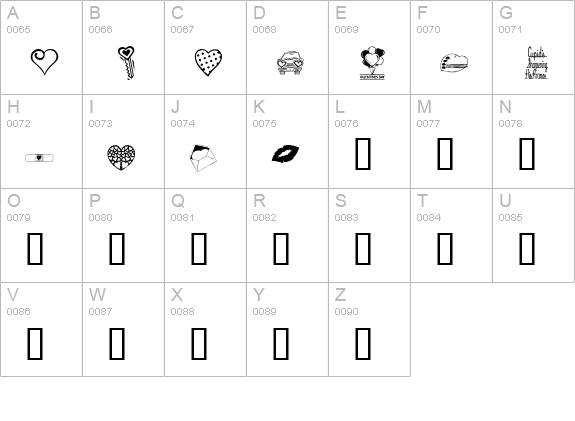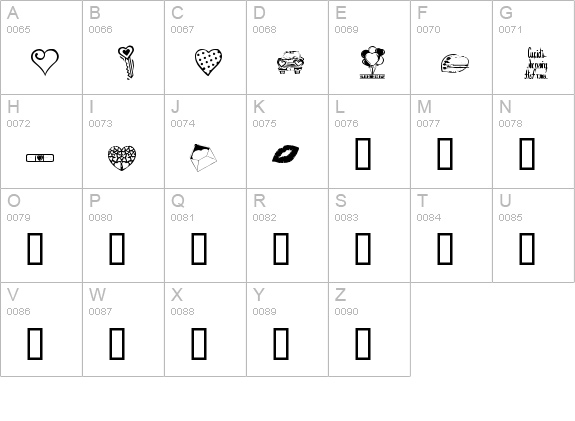
KR Valentine Dings Font Details
KR Valentine Dings font is a charming and whimsical typeface designed to add a touch of love and romance to your projects. This delightful font features a collection of heart-themed dingbats, perfect for creating Valentine's Day cards, wedding invitations, or any design that needs a sweet and playful touch. Best of all, KR Valentine Dings is available for free download at FontsMarket.com. With its easy-to-use characters and adorable designs, this font will surely bring joy and love to your creative endeavors. Add a dash of heartfelt charm to your designs with KR Valentine Dings today!